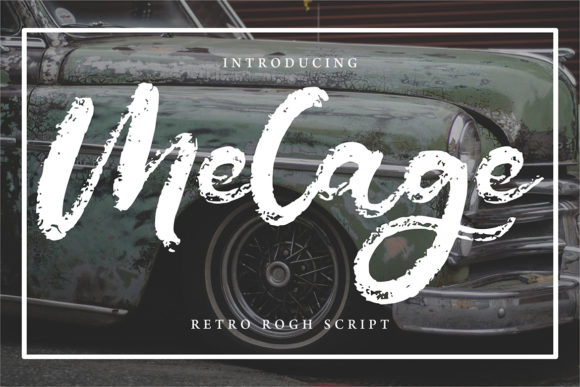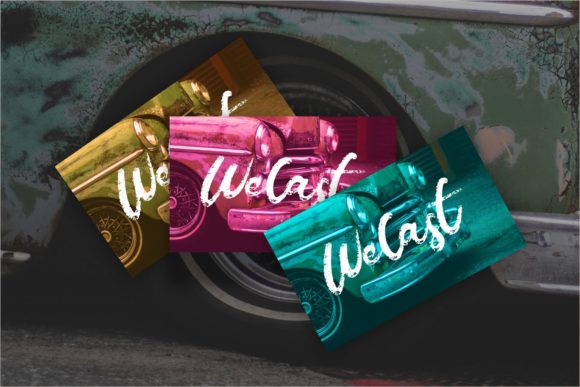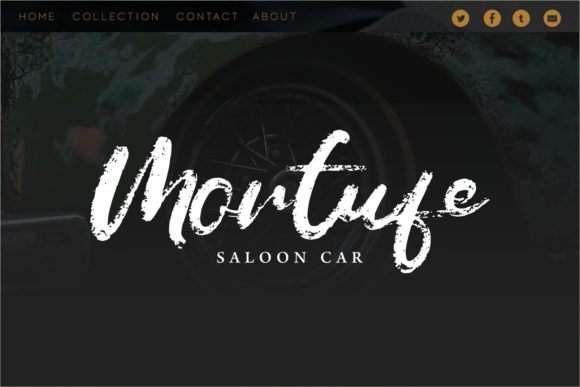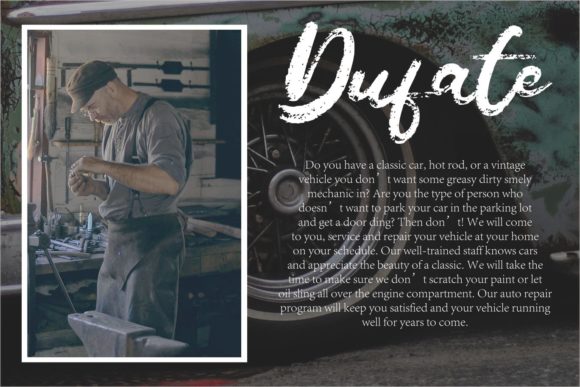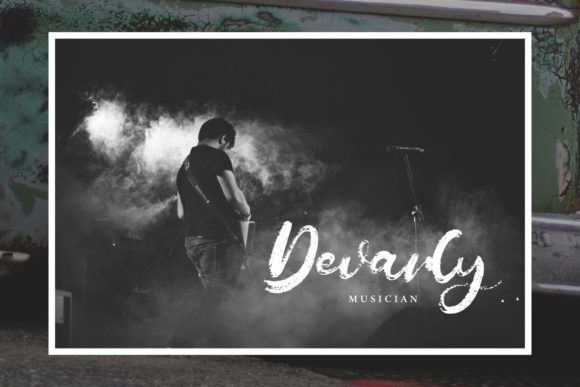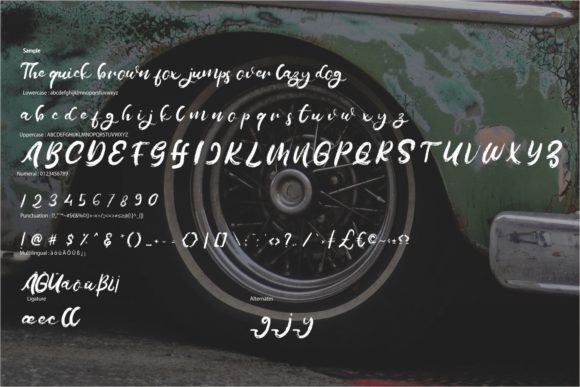
HomeScript FontsMelage Font Script Fonts Melage Font FacebookXPinterestWhatsApp Melage Font Poster 2 Melage Font Poster 3 Melage Font Poster 4 Melage Font Poster 5 Melage Font Poster 6 About Melage Font Melage is a sweet and bold script font, perfect for adding a charming vibe to any crafting project. DOWNLOAD ON CREATIVE FABRICAThis font is sold and delivered by Creative Fabrica. Font Canyon may earn a commission if you buy through this link. People also explored Childish Starry Font Juanda Meulageum Font Mareline Duo Font Alterline Font Little Bethany Font Gortem Font Mikeyla Font With You Font 293 0 TagsMelage Font Previous articleDuythy FontNext articleAdelmo Font LEAVE A REPLY Cancel reply Comment: Please enter your comment! Name:* Please enter your name here Email:* You have entered an incorrect email address! Please enter your email address here Website: Save my name, email, and website in this browser for the next time I comment. Personal Use Free Hello Sarrah Personal Use Free Read more about this font Cute Messy Personal Use Free Read more about this font Beloved Script Personal Use Free Read more about this font Doriath Personal Use Free Read more about this font BLOG 5 Fonts That Will Dominate Design Trends in 2026 5 Fonts for 2026 That Will Dominate Design Trends Typography plays a critical role in visual communication, and as we look ahead to 2026, it’s... Free vs Paid Fonts: Why Investing in Premium Fonts Is Worth It Top 7 Google Fonts Alternatives for Faster and Privacy-Friendly Web Design (2025) Where to Buy American Fonts Online in 2024